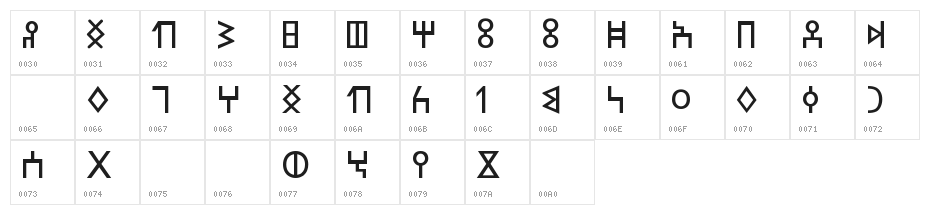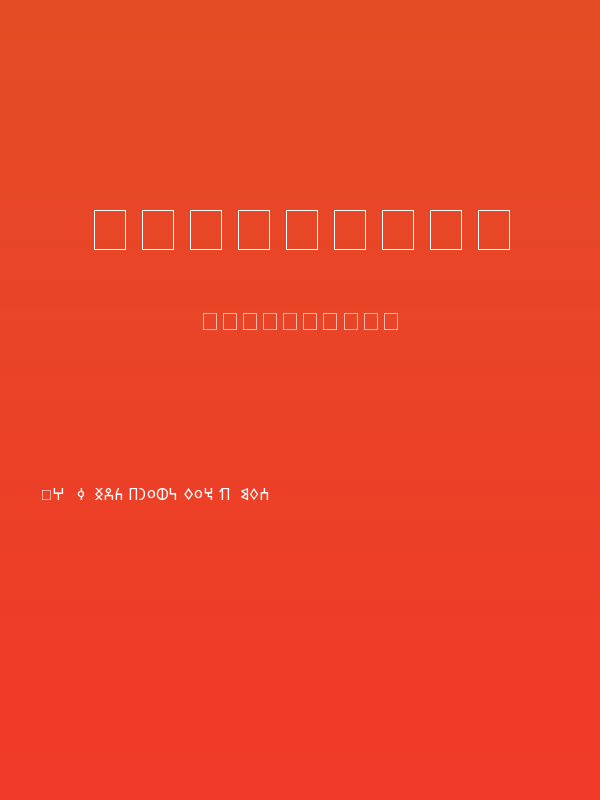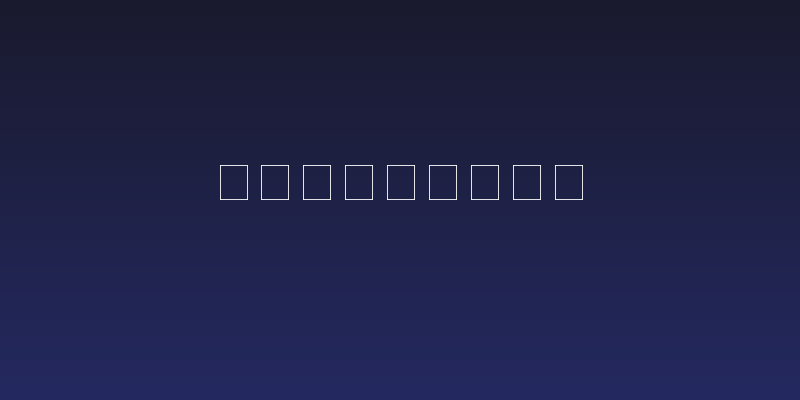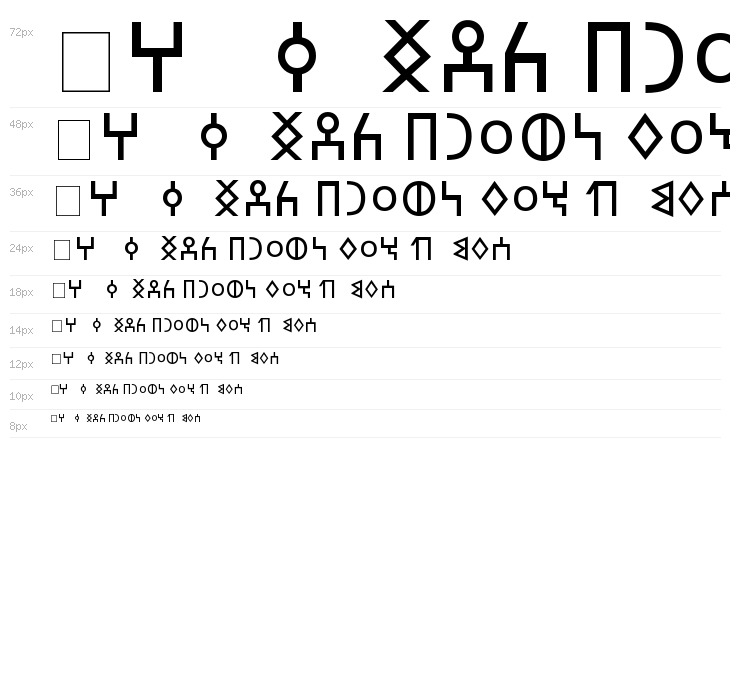
SabaeanGG Font
SabaeanGG Description
| Overall Style | Historical, Symbolic |
| Use Case | Cultural displays, Historical documentation |
| Proposed Projects | This script could be used for historical research, cultural studies, or artistic projects that require ancient or symbolic scripts. |